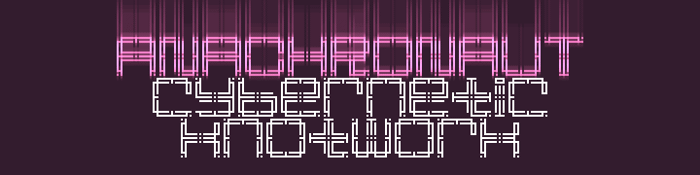
Anachronaut Font
This was once a shy, lineal design... then it rebelled against its parents, went subtractive, and finally became futuristic knotwork. Gnarly!
Because of the way this font is made, some characters are impossible to make without changing the design rules. Check the tables to make sure it has what you want...